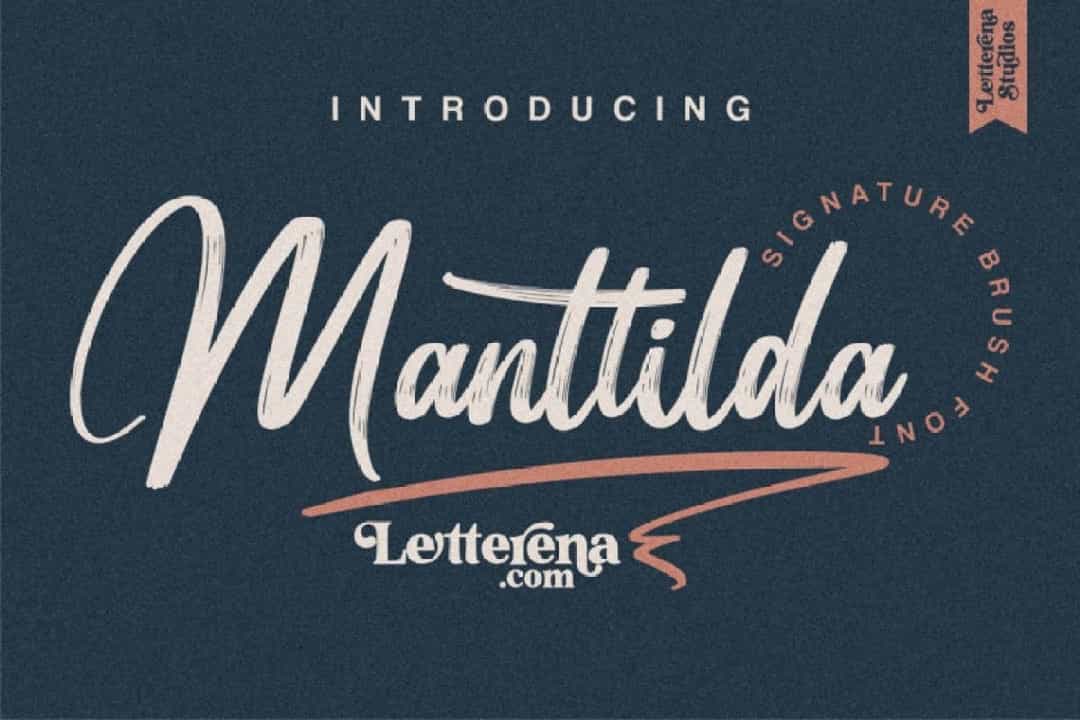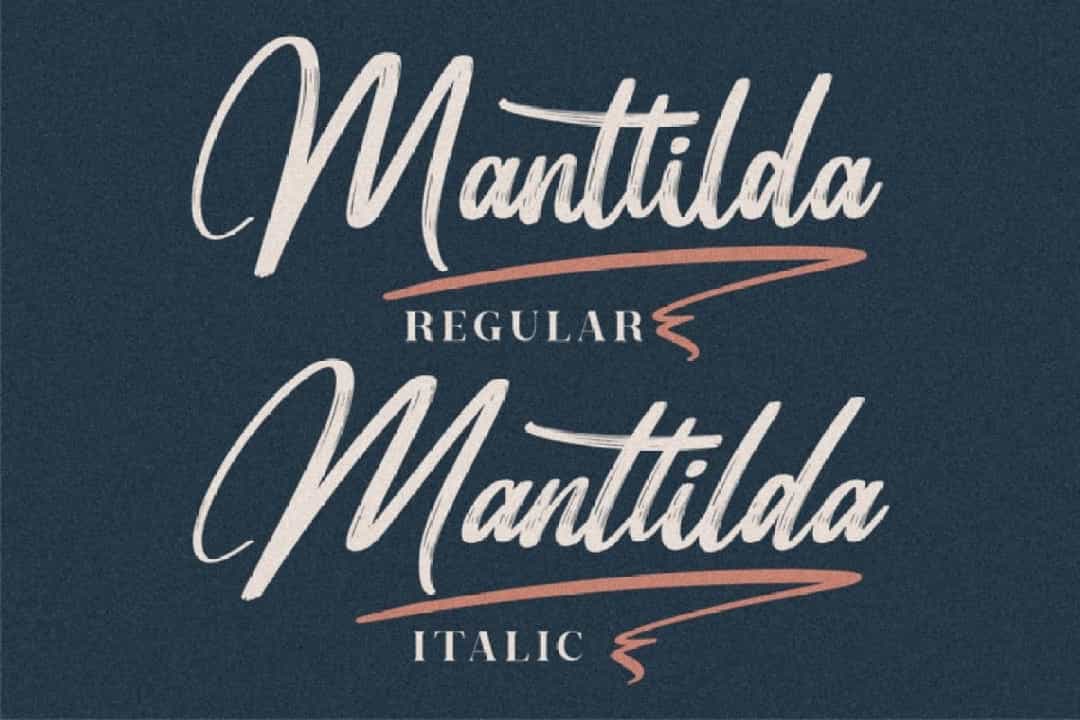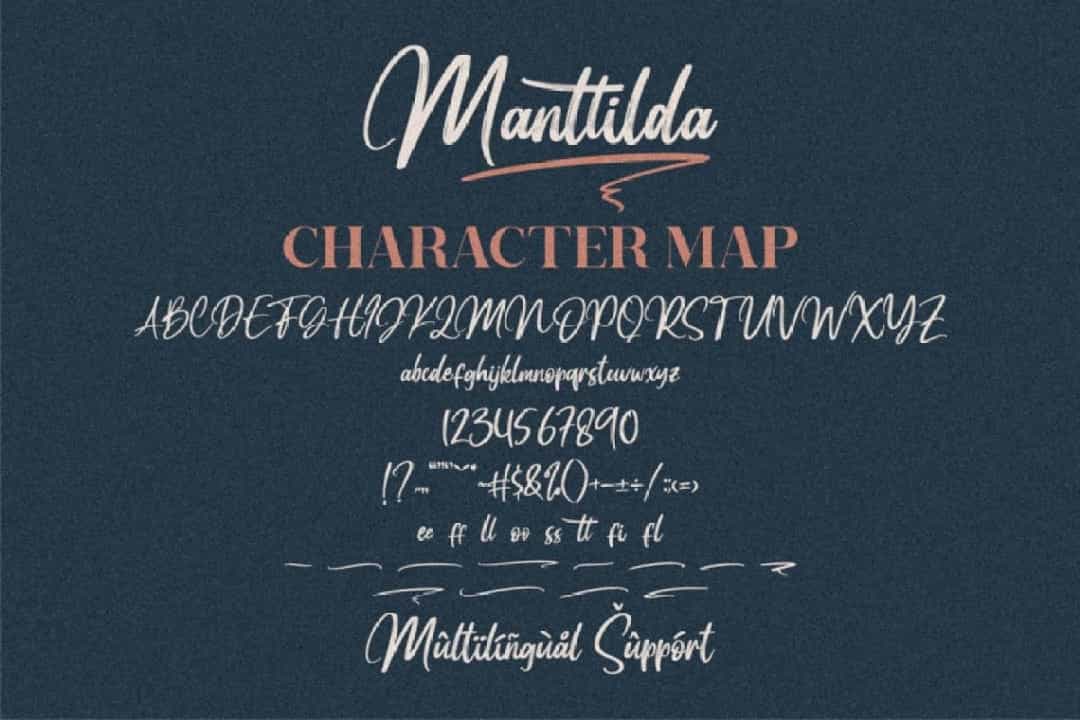
Mantilda is an elegant script brush font which is suitable for the use in logo design, branding design, homeware packaging design, and other luxurious projects with script tastes including logos, branding design mugs, posters, quotes, shopping bags, T-shirts, books, name cards, greeting cards, invitation cards, photography watermarks, special events watermarks, and other projects with genuine script tastes such as books on T-shirt.